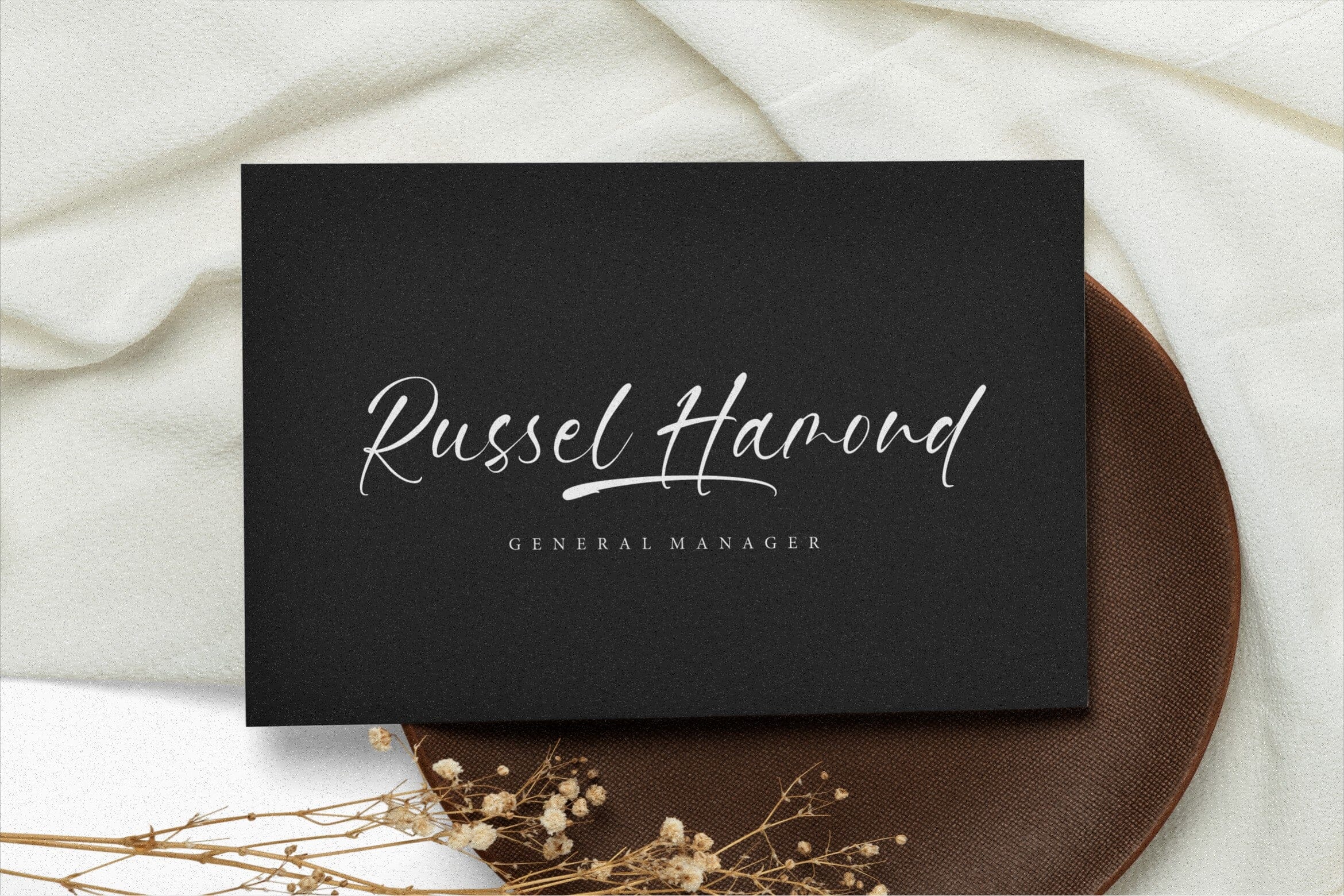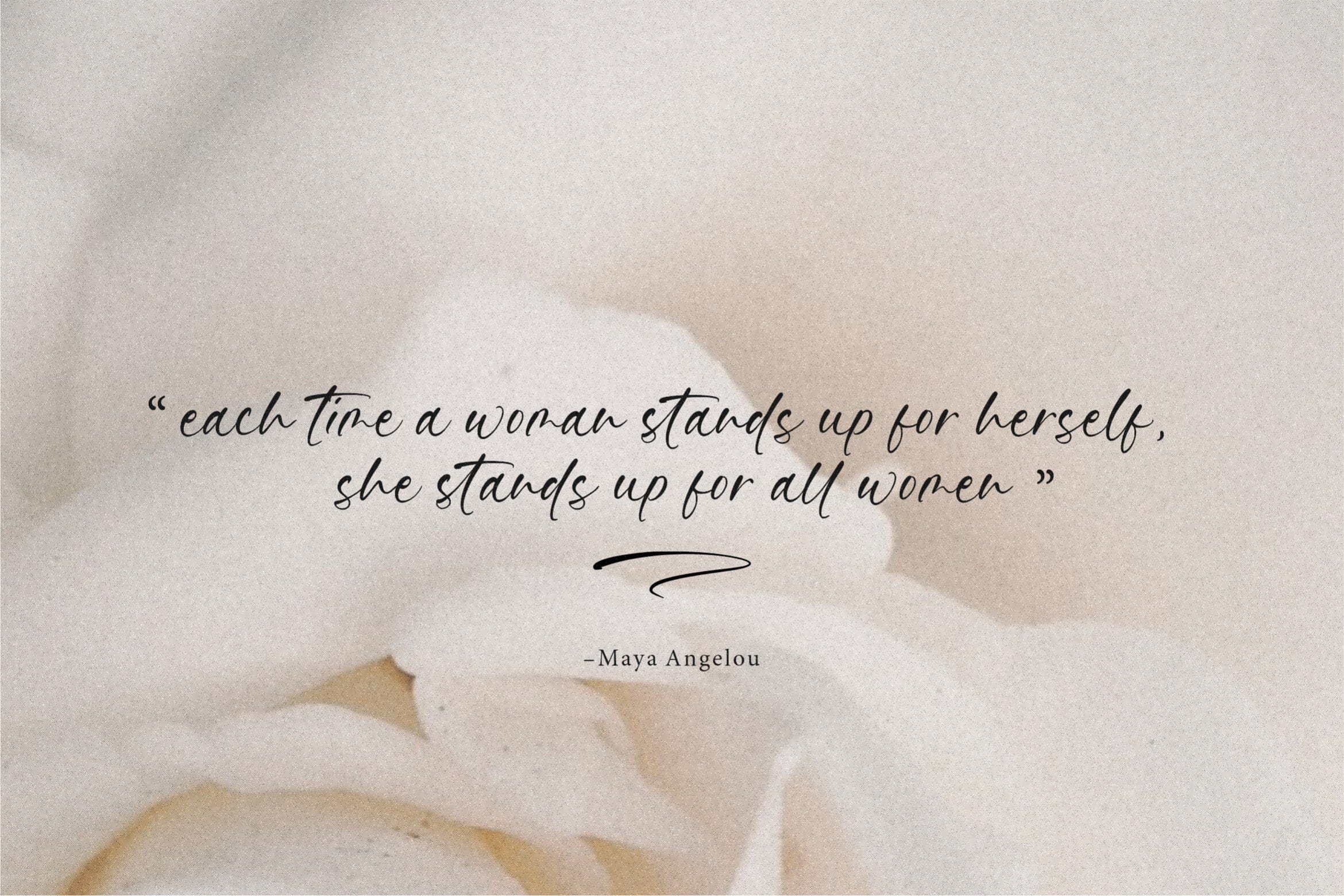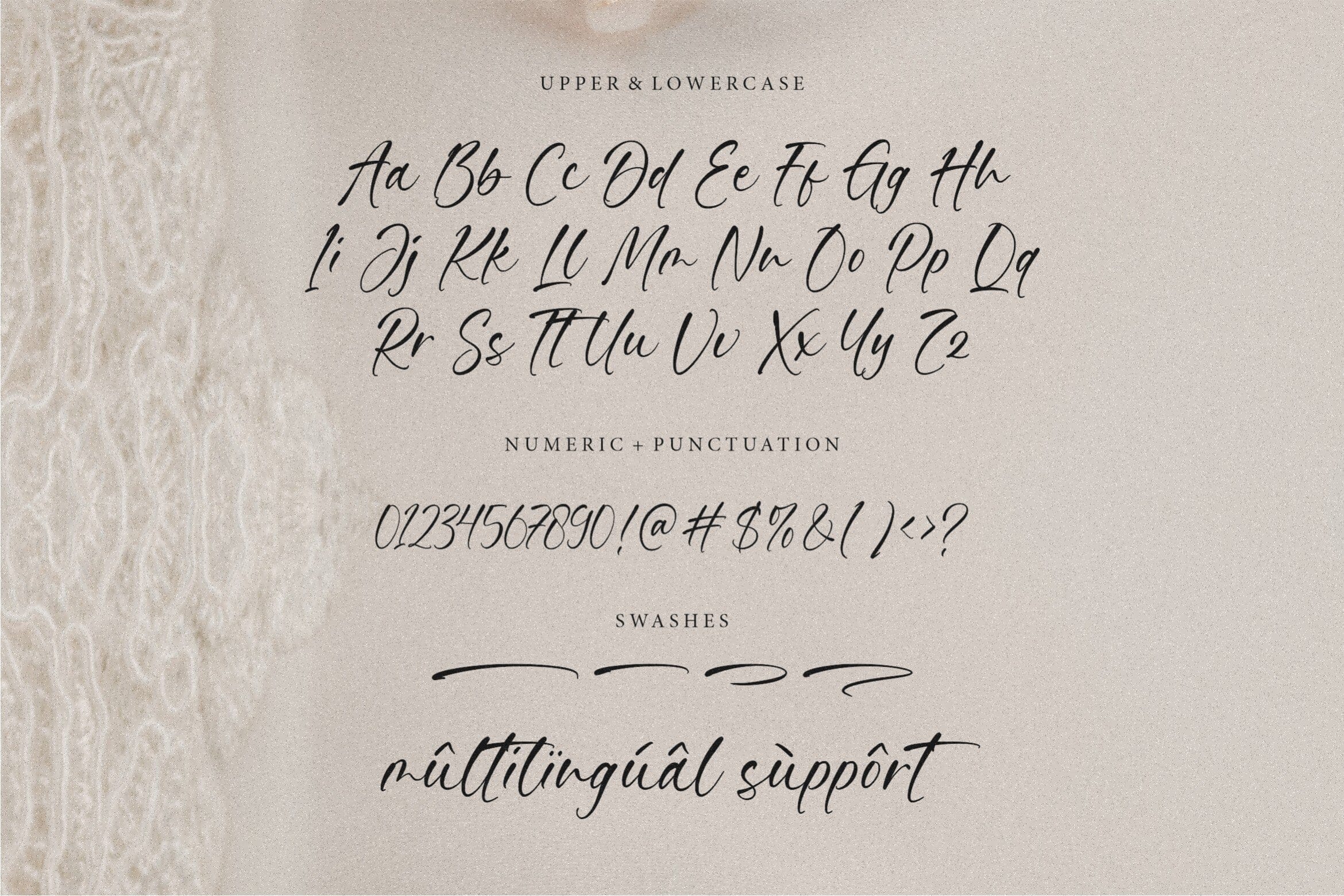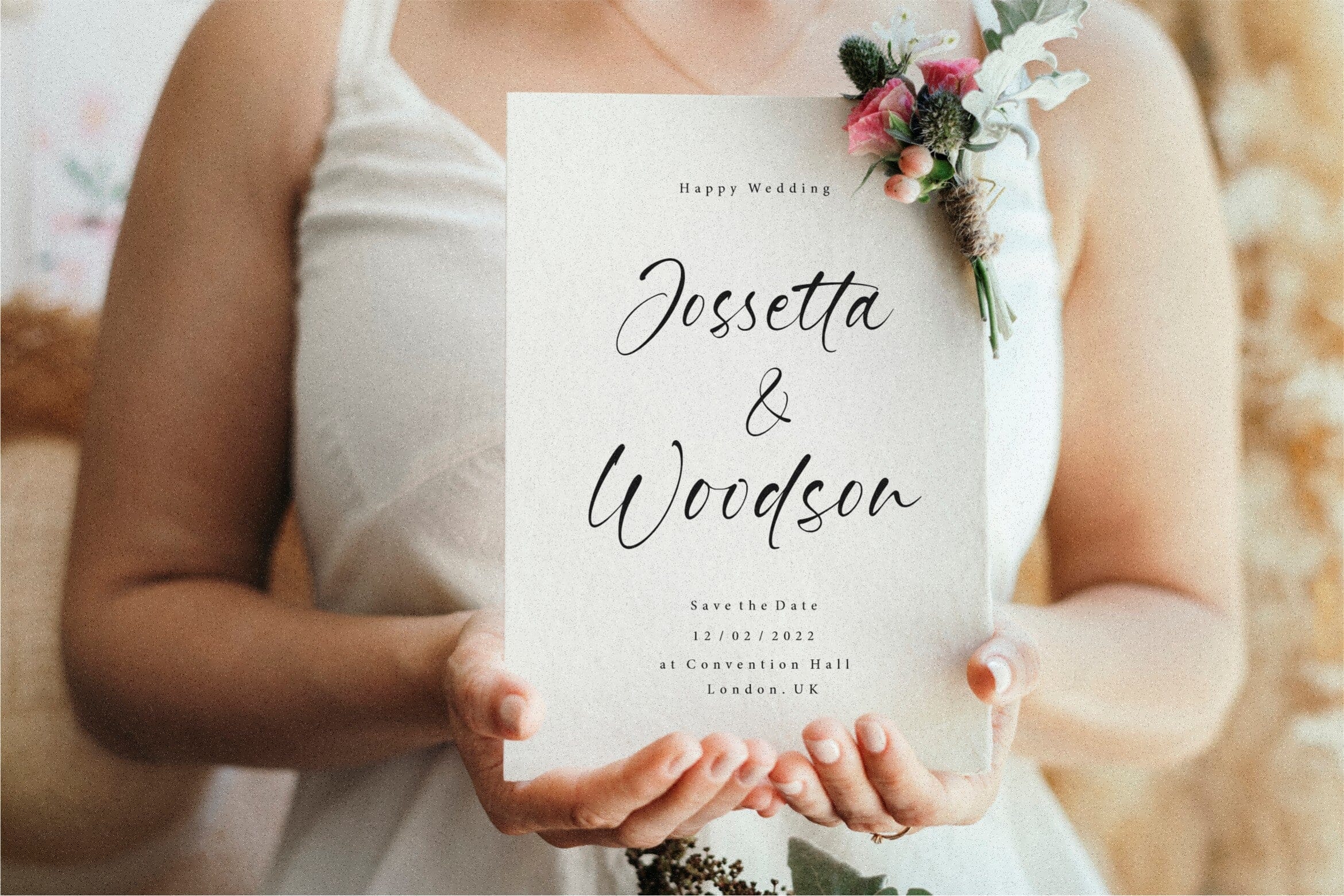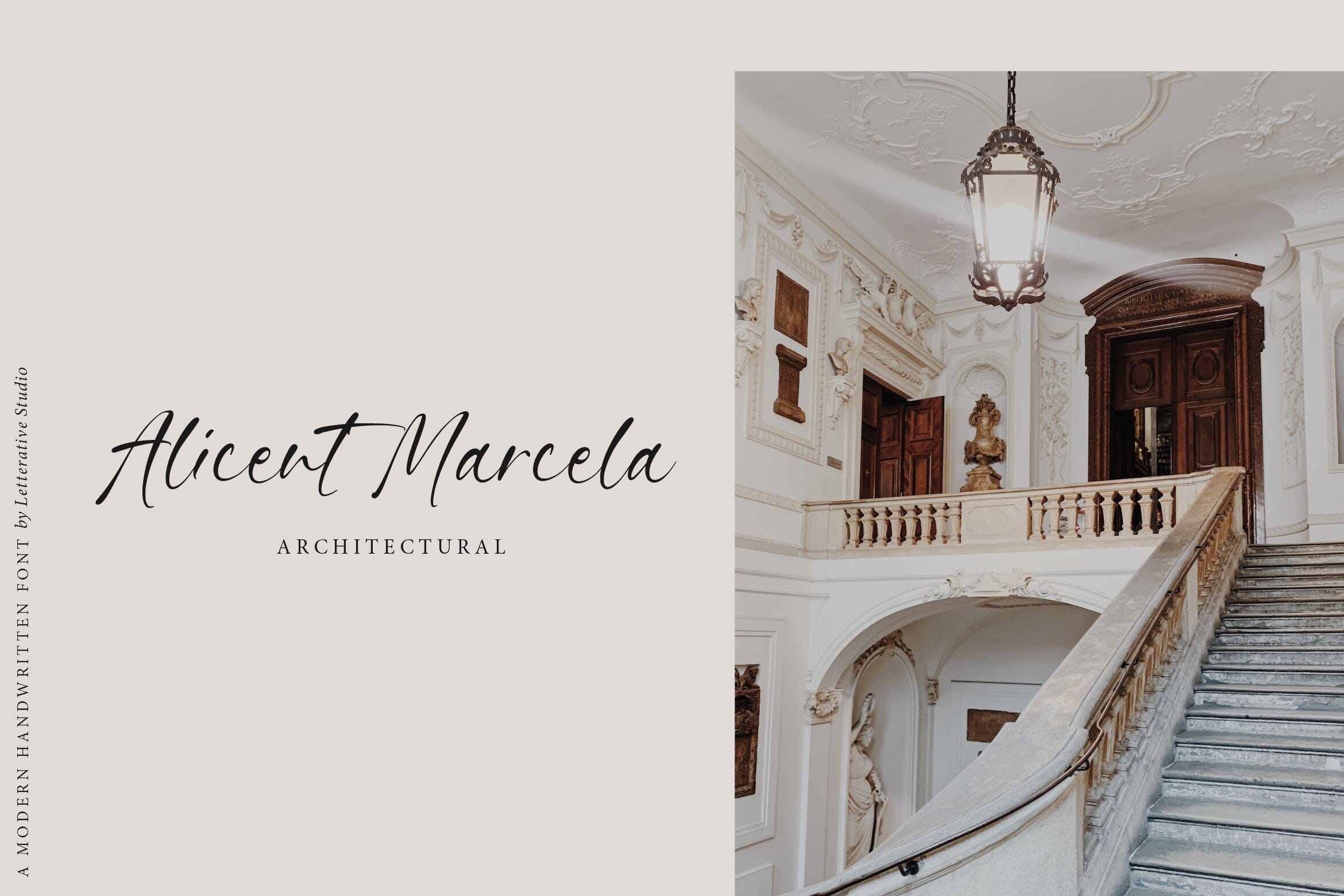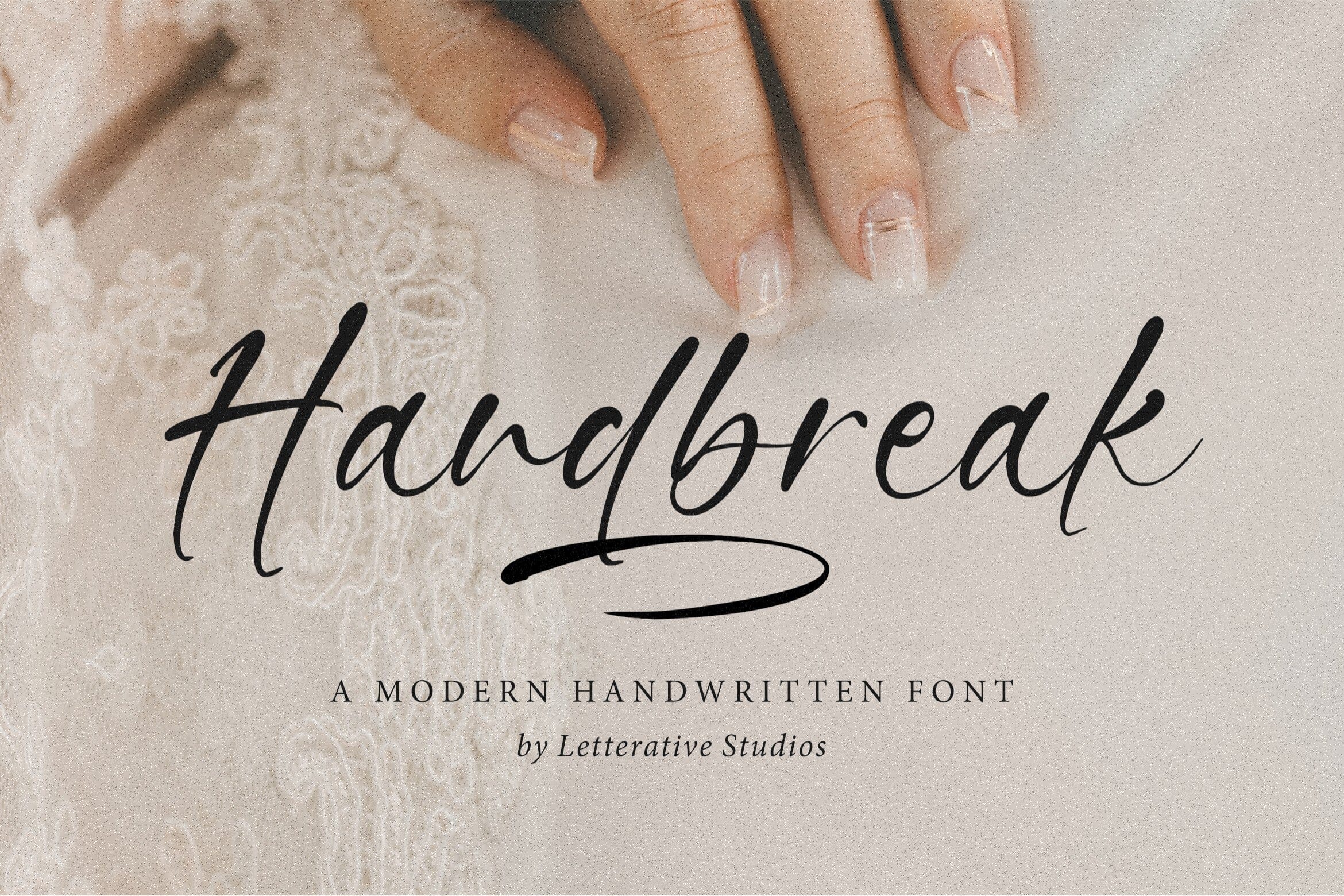
Handbreak Modern Handwritten Font
About Handbreak Modern Handwritten Font
Introducing by Letterative Studio : Handbreak Font Handbreak is a Modern Handwritten Font. Whether you’re using it for crafts, digital design, presentations, or making greeting cards, this font has the potential to become your favorite go-to font, no matter the occasion! This font includes : – TTF, OTF and WOFF – also multilingual support – Swash Enjoy the font! Feel free to comment or feedback Send me PM or email Thank you!